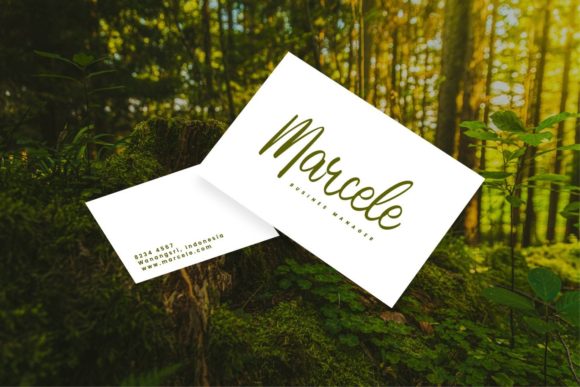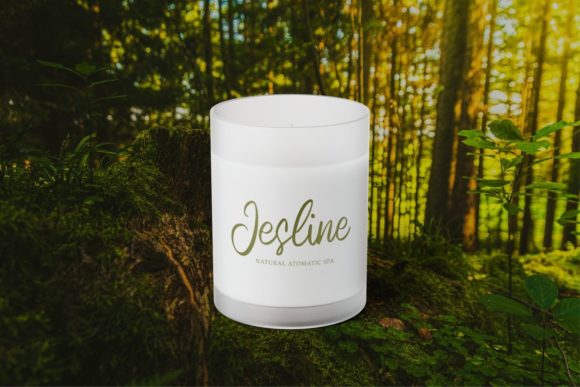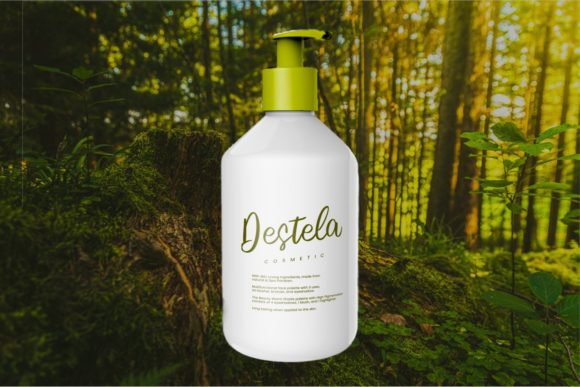
Introduction to Huntten Font
Have you ever found yourself lost in the world of design, trying to bring your creative vision to life, only to be held back by the limitations of your font choices? I know I have. Remember that one project where you spent hours tweaking the perfect design, only to have it fall flat because of a generic, uninspired font?
That’s where the Huntten Font comes in – a game-changing, high-quality script font that’s sure to elevate your creative project to new heights. With its charming, playful characters that seem to dance along the baseline, this font is the perfect addition to any design. And the best part? It’s available for a free download, complete with a transparent background, making it the ultimate design resource for any creative professional.
Whether you’re working on a branding project, a wedding invitation, or just a fun design for social media, the Huntten Font is sure to bring a touch of magic to your work. In this article, we’ll dive deeper into the world of this amazing font and explore why it’s a must-have for any designer looking to take their work to the next level.
Key Features of Huntten Font
- Unique characteristic: Huntten Font features a distinctive, hand-drawn style with a modern twist, making it an excellent design resource for creative projects.
Honest Review: Huntten Font
I recently stumbled upon the Huntten Font while searching for a unique design resource for a creative project. I must say, I was impressed by its high quality and versatility.
Here’s what I like about the Huntten Font: ✨
- It has a transparent background, which makes it easy to combine with other design elements.
- The font is highly customizable, allowing me to adjust its style to fit my design needs.
However, I did encounter some limitations while working with the Huntten Font: ⚠️
- The font may not be as readable at smaller font sizes, which could be a concern for some designers.
Overall, I’d say the Huntten Font is a great design resource for smaller projects or personal use. While it may not be perfect, its high quality and free download make it a worthwhile addition to any designer’s toolkit.
Huntten Font
The Huntten Font is a high-quality, free download design resource ideal for creative projects. Its transparent background makes it easy to integrate into various design applications.
Tips for Getting the Most Out of Huntten Font
To get the most out of the Huntten Font, consider the following tips:
Use it in combination with other high-quality design resources for a cohesive look.
Experiment with different font sizes and styles to add visual interest.
Use the transparent background to create a sense of depth and layering.
The Huntten Font is ideal for a variety of creative projects, including:
Logo design
Business cards
Infographics
Marketing materials
Does the Huntten Font have a transparent background?
Yes, the Huntten Font is designed with a transparent background, making it easy to layer over images or other design elements. This feature is particularly useful for designers working on creative projects that require a high level of customization.